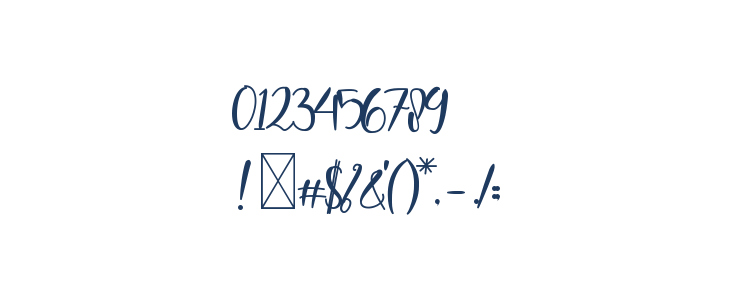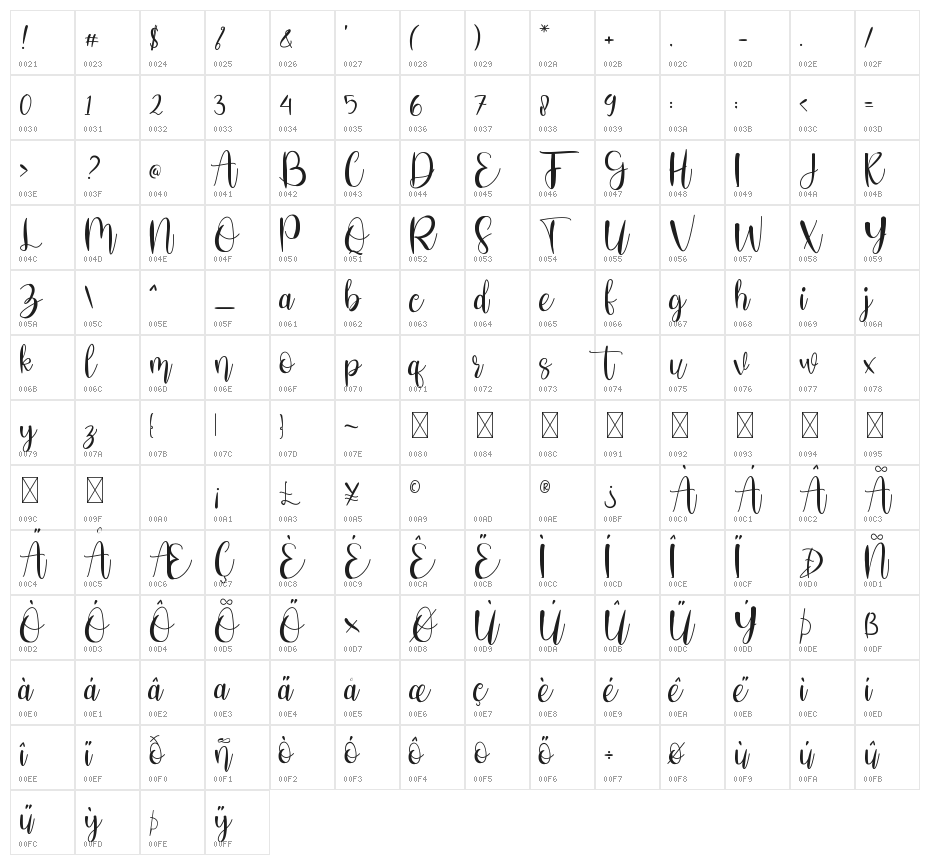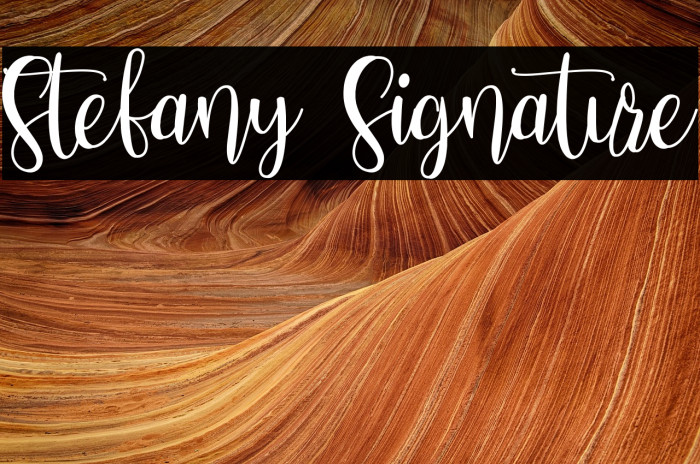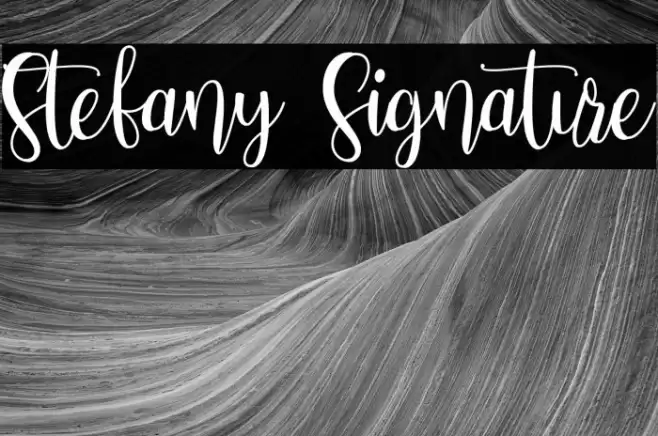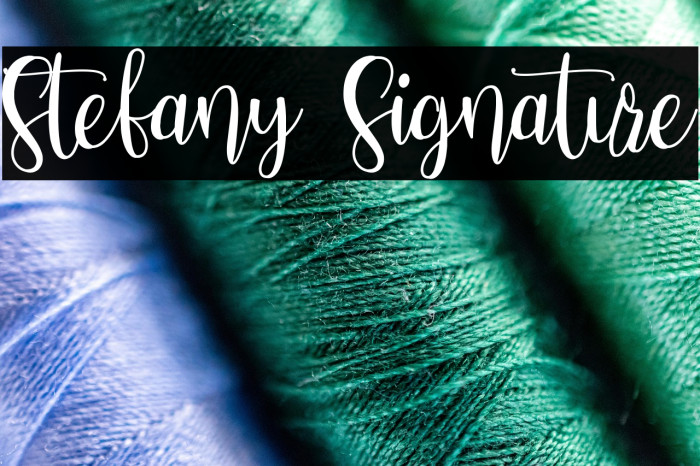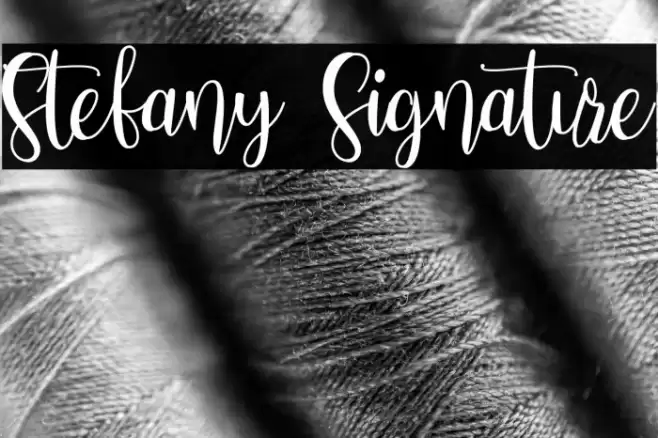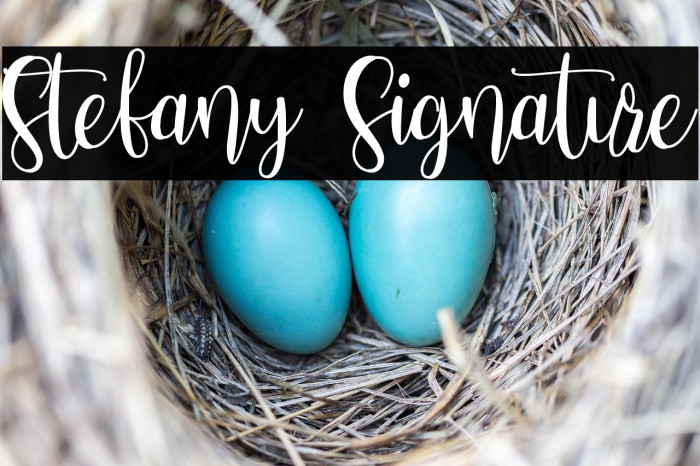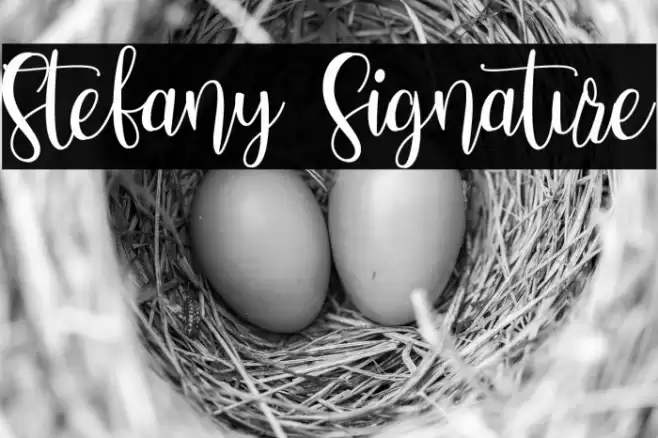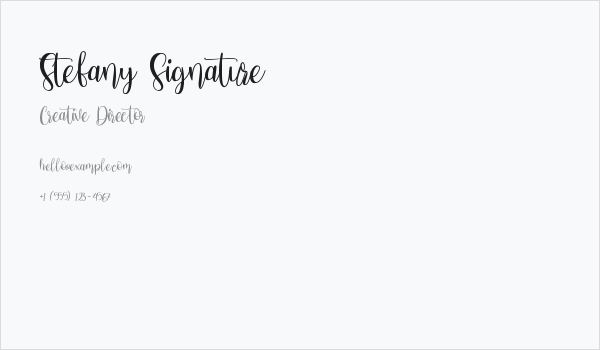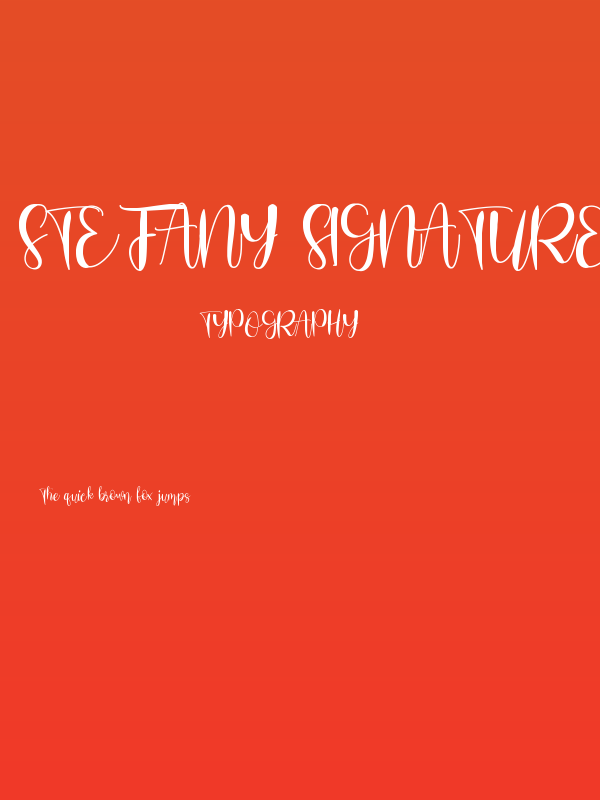
Stefany Signature Font
Stefany Signature Description
This font exudes a sophisticated and elegant handwritten style, characterized by its fluid and graceful script. The letters are connected with smooth, flowing lines, giving it a natural and personal touch. The uppercase letters are bold and prominent, while the lowercase letters maintain a consistent flow, enhancing readability. The numerals and special characters are crafted with the same attention to detail, ensuring a cohesive look across all text. This font is perfect for adding a touch of elegance and personality to any project, making it ideal for invitations, branding, and personal stationery.
| Use Case | Logos, Invitations, Personal Stationery |
| Proposed Projects | Ideal for wedding invitations, personal branding, elegant stationery, and logo design. |